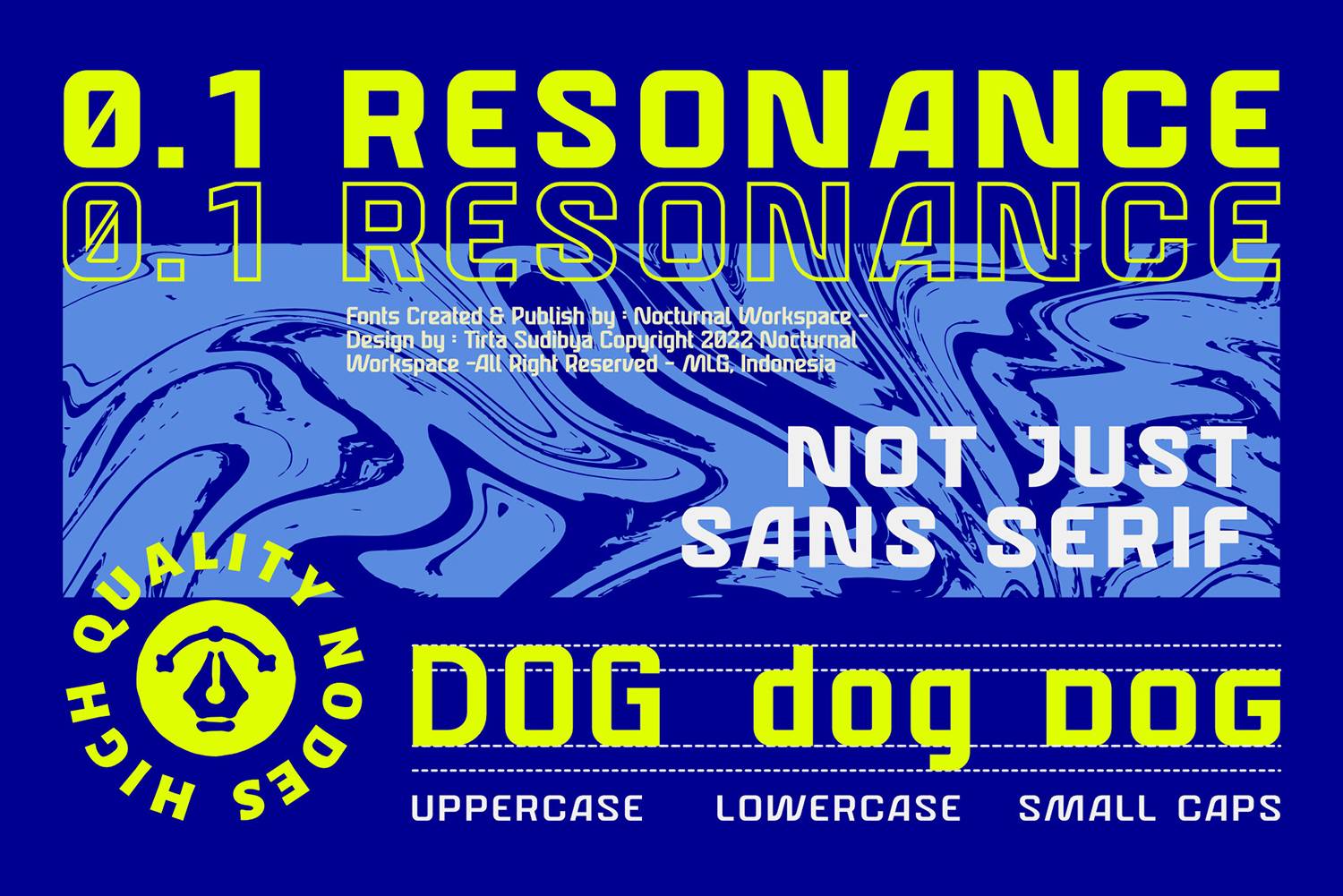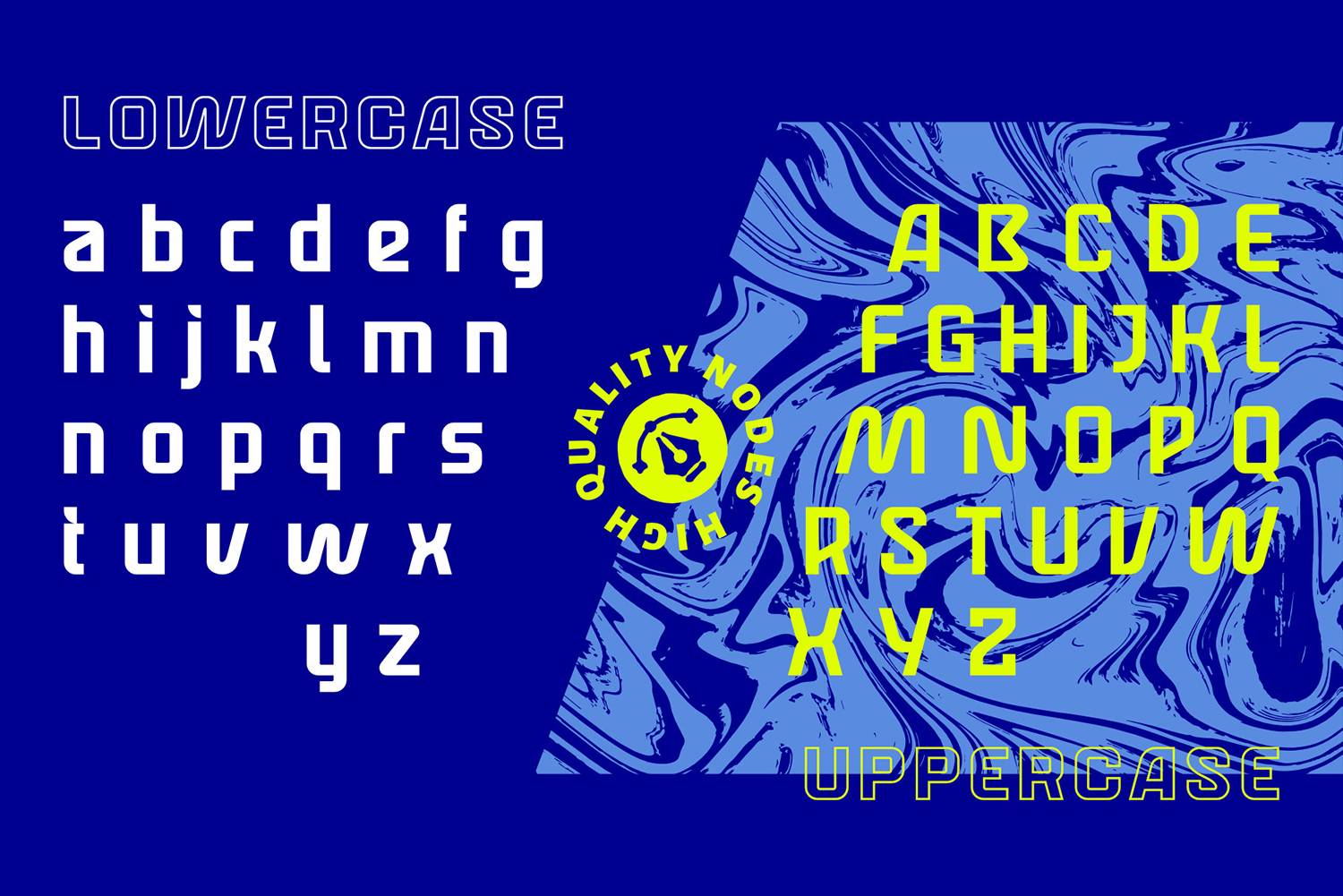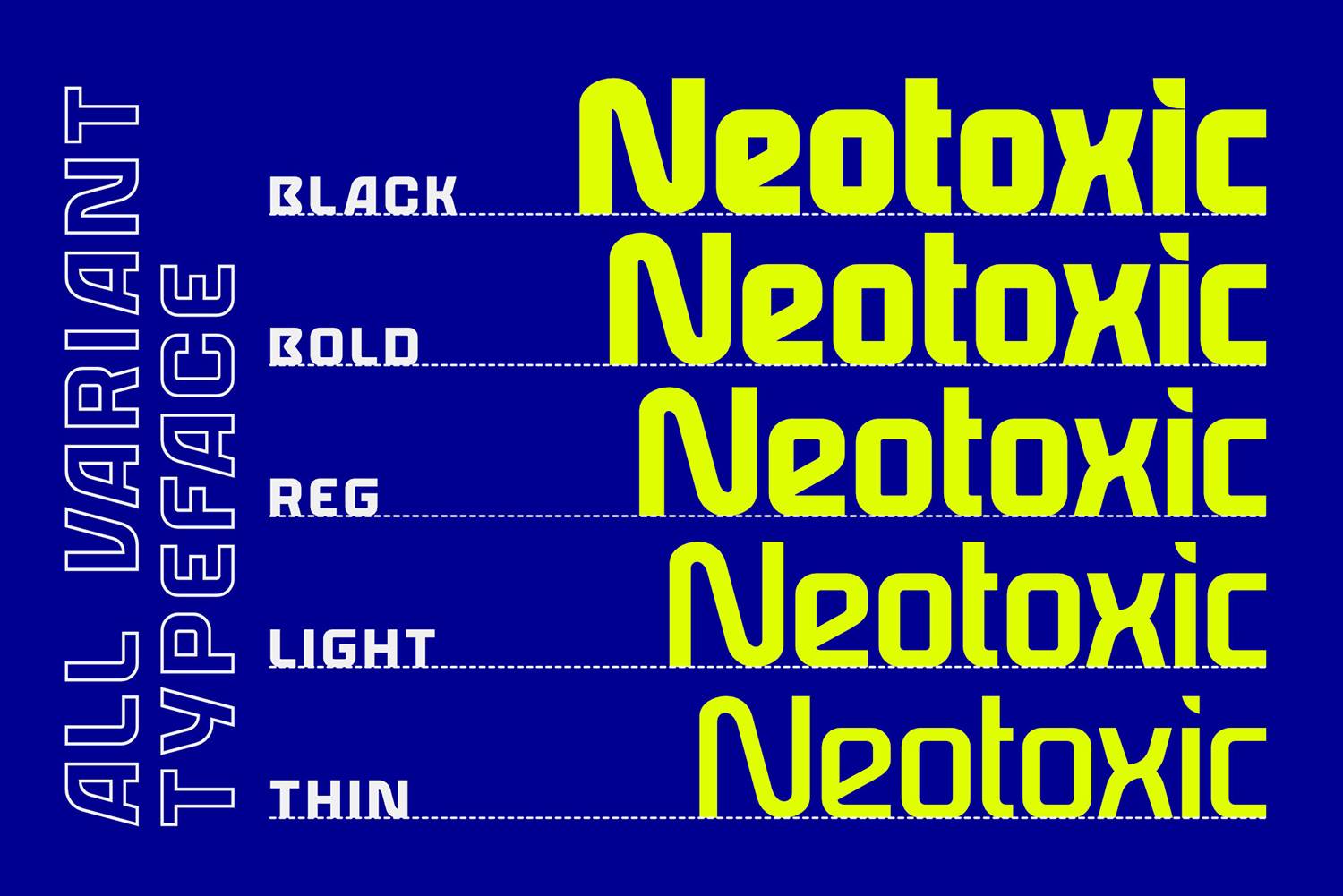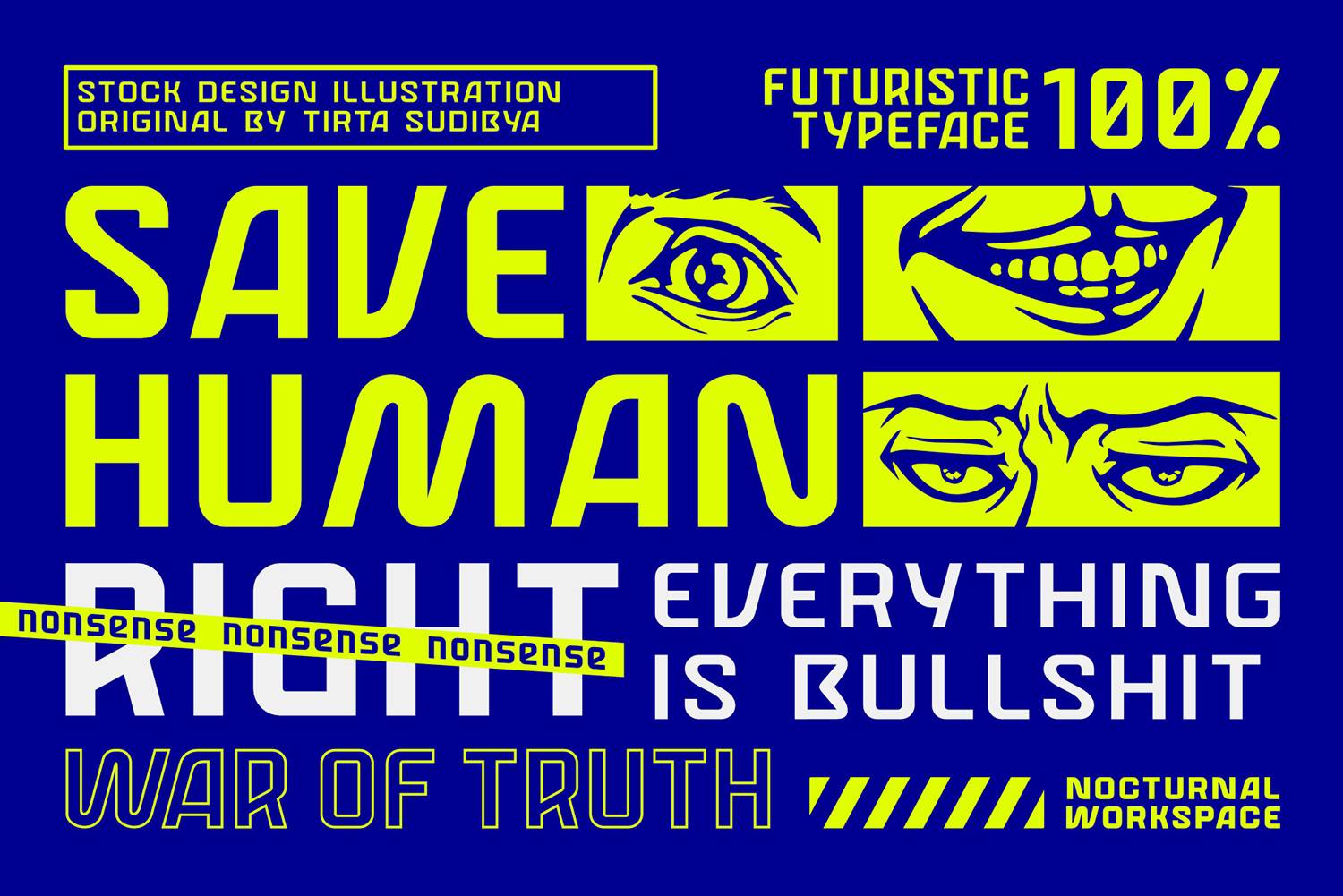
Neotoxic is a bold, condensed sans serif font with a futuristic and edgy vibe, featuring sharp angles and slightly irregular, stylized letterforms. Its high x-height and geometric shapes make it striking and attention-grabbing, ideal for use in logos, headlines, and edgy branding that wants to convey a modern, tech-inspired personality. This font works best in designs needing a strong, distinctive presence with a contemporary and dynamic feel.
Neotoxic Font
| Designer | Tirta Sudibya |